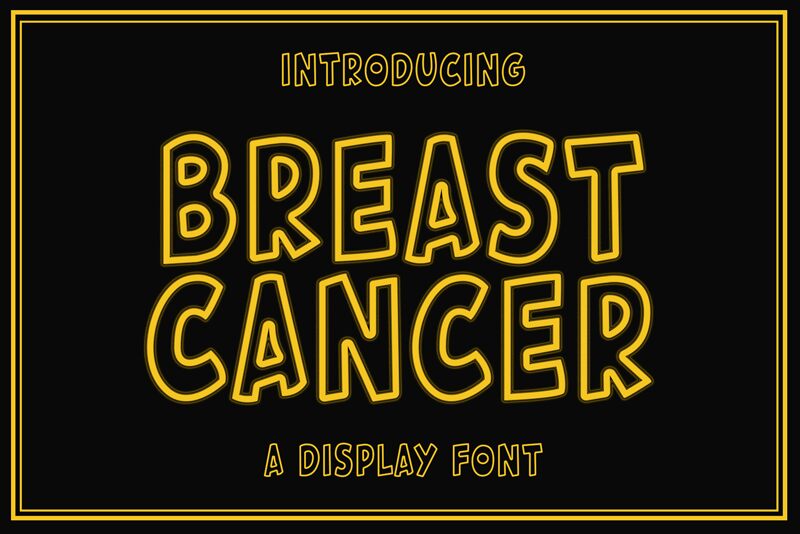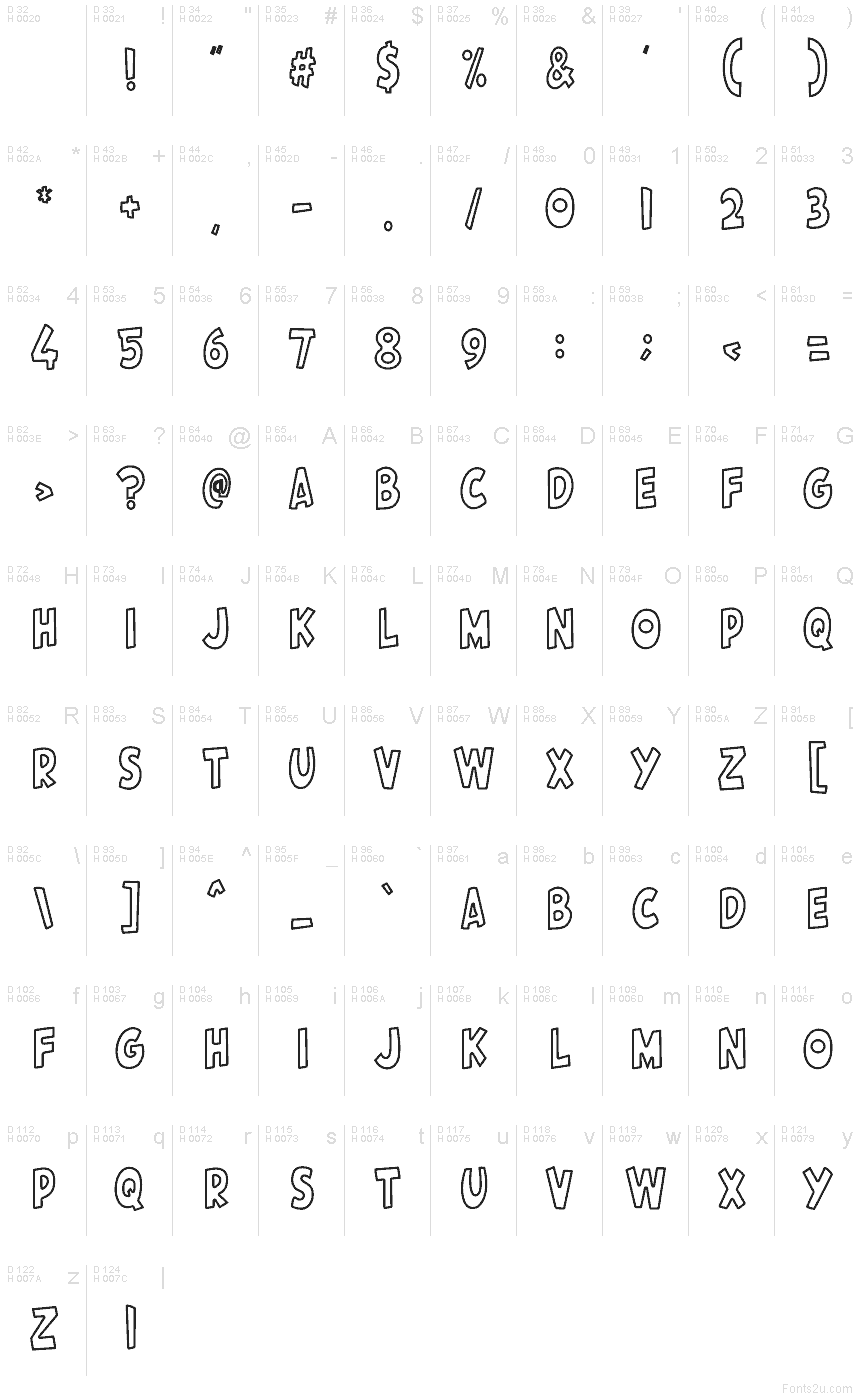
Breast Cancer
Breast Cancer font by Creatype Designer is a free outlined cartoon display font. Built with bouncy, hand-drawn contours and roomy interiors, it carries a warm, approachable voice that softens tough topics without losing clarity. The inky outline has a friendly wobble that feels human and supportive, while the even spacing keeps headlines snappy and legible at a distance.
Using Breast Cancer, messaging for community events feels upbeat and inviting. It shines on event posters, charity walk T‑shirts, stickers, social media cards, badges, classroom flyers, and donation jar labels. This free font holds color beautifully—try a bold fill with a soft shadow—and pairs naturally with a clean geometric sans for body copy to keep the message organized and readable.